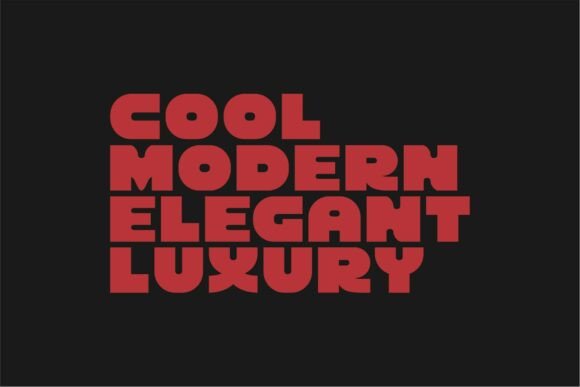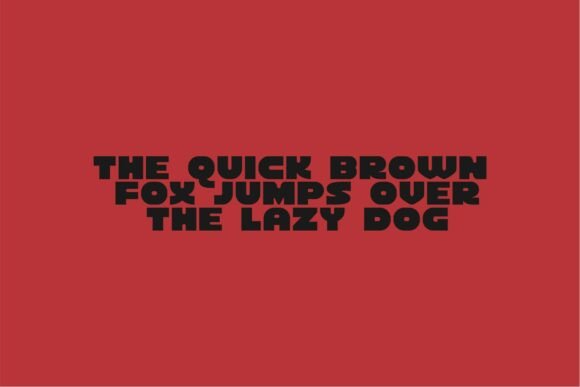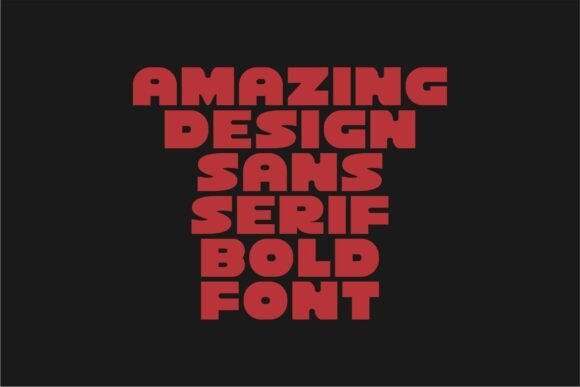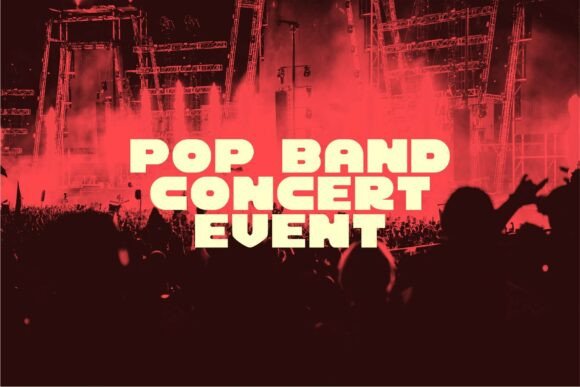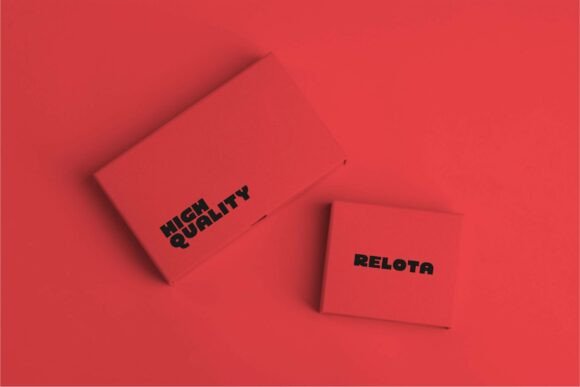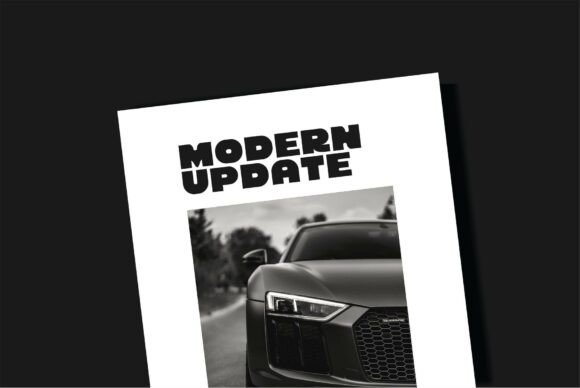
Introduction to Pro Bold Font
Pro Bold is a sans serif font presented in a modern style to become a market favorite.
Weโ€™ve kept this font elegant, classy, โ€‹โ€‹modern, stylish, contemporary, and easy to use Pro Bold is a great choice for magazines, book covers, shopping bags, packaging, logos, labels, fashion, posters, banners, bags, branding, fashion, brand names, branding, quotes, and other projects.
Pro Bold Font offers exceptional quality and versatility, making it a valuable addition to your design toolkit. Whether you’re creating for personal projects or commercial use, Pro Bold Font delivers professional results.